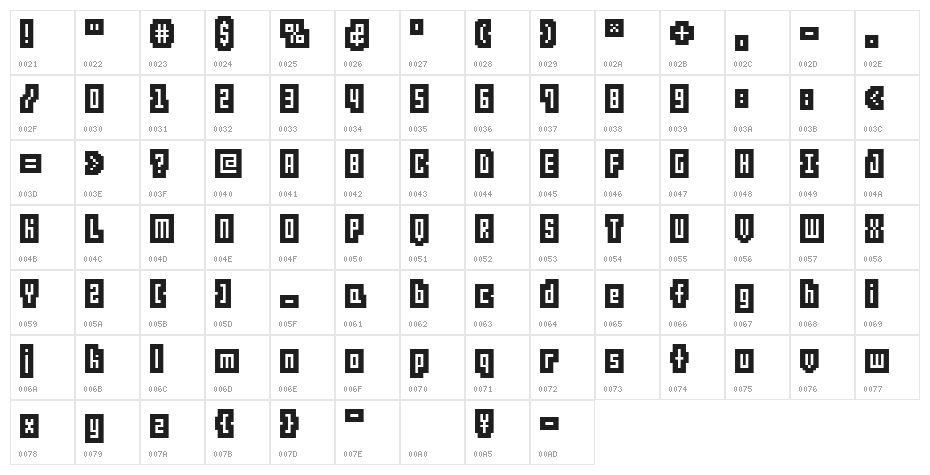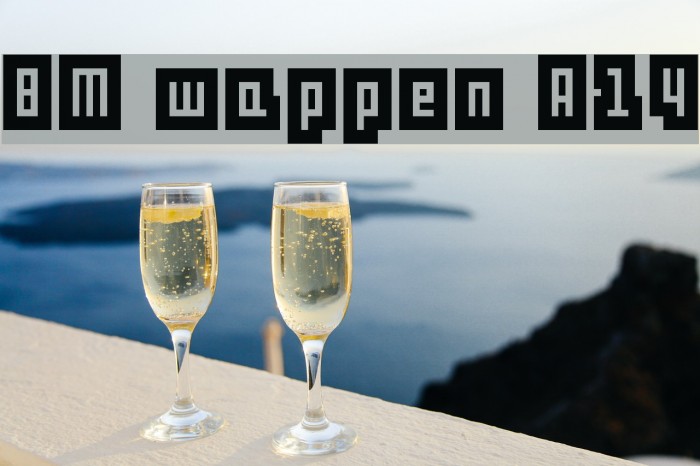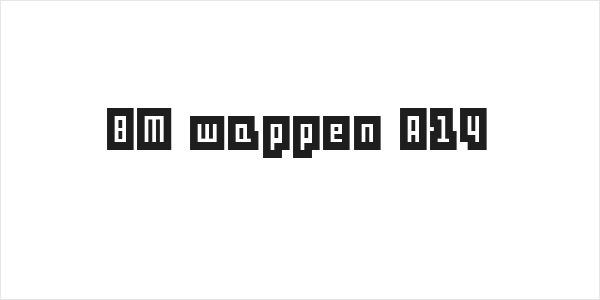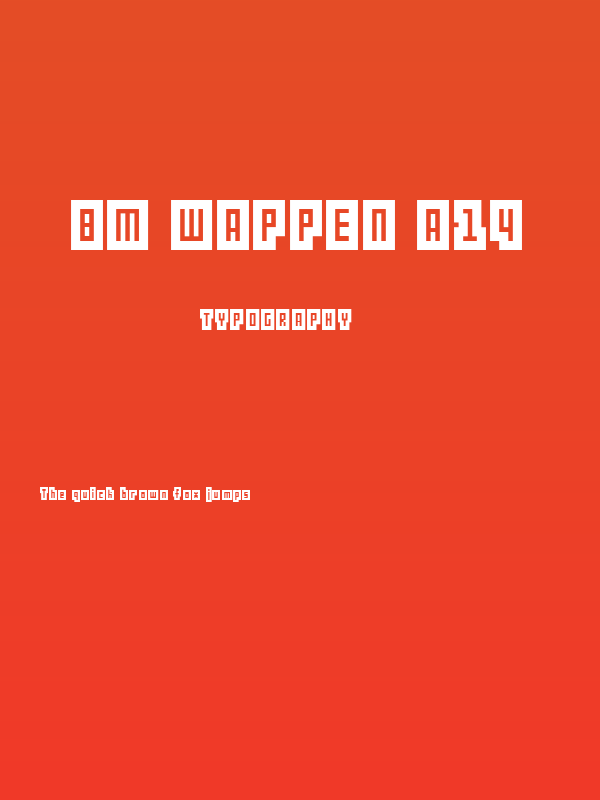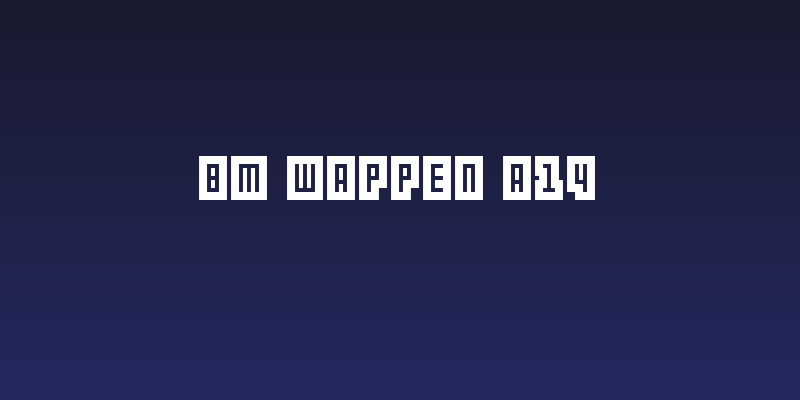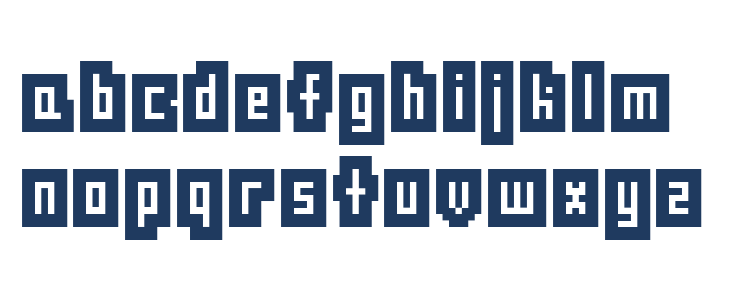
BM wappen A14 Font
BM wappen A14 Description
This font features a bold, blocky design with a pixelated aesthetic reminiscent of early digital or video game graphics. Each character is enclosed in a square, giving it a uniform and structured appearance. The uppercase and lowercase letters maintain a consistent height, contributing to its geometric style. The numbers and special characters follow the same design principles, ensuring a cohesive look across all elements. This font's distinct style is both retro and modern, making it versatile for various creative applications.
| Overall Style | Retro, Digital |
| Proposed Projects | Ideal for video game design, retro-themed posters, digital art projects, and any creative work that requires a nostalgic or tech-inspired look. |